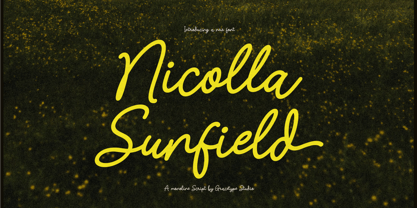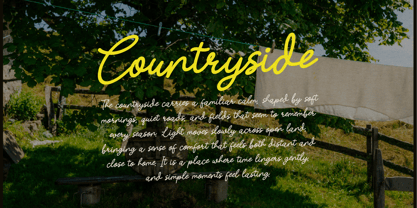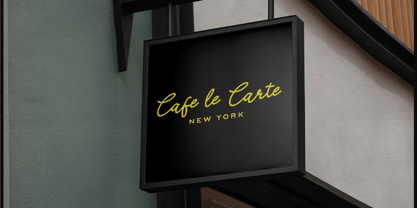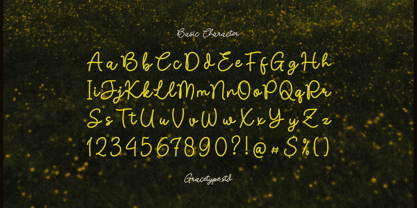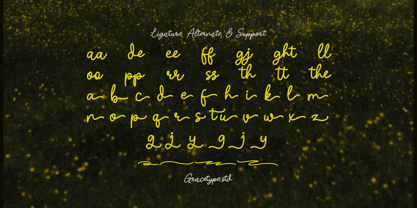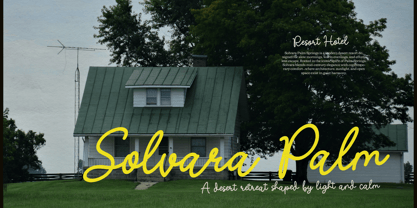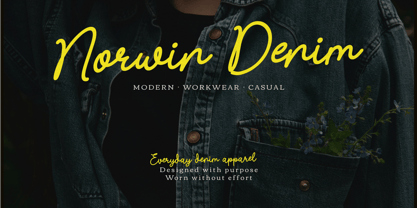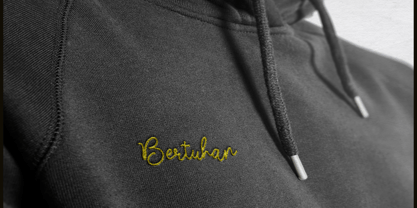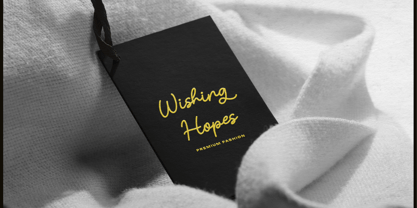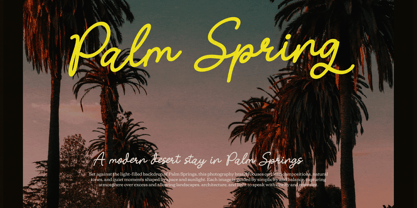
Nicolla Sunfield
Nicolla Sunfield | Monoline Script, from Gracetypestudio, suitable for any projects such as: logos, branding projects, homeware designs, product packaging, mugs, quotes, posters, shopping bags, t-shirts, book covers, name card, invitation cards, greeting cards, label, photography, watermark, special events, and all your other lovely projects that need a Sans Serif taste.